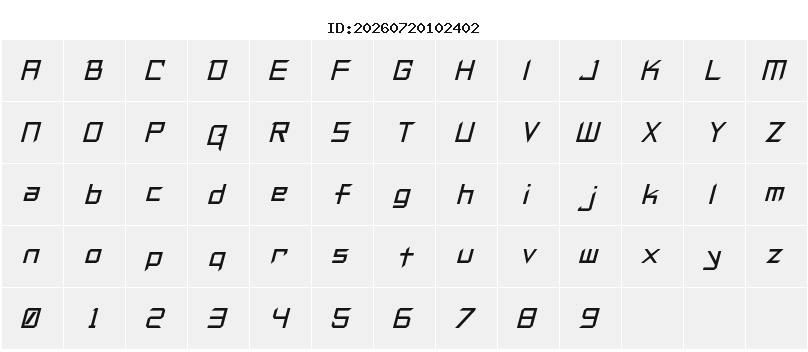
Furmanite Preview
• Font Name: Furmanite
• Font ID: Furmanite Bold Italic:Version 1.00
• Full Font Name: Furmanite Bold Italic
• Version: Version 1.00 April 19, 2013, initial release
• PostScript Name: Furmanite-BoldItalic
• Designer: Neale Davidson
About Furmanite.ttf
Furmanite.ttf is a modern, elegant sans-serif font designed for ultimate readability and visual harmony. Perfect for branding, headlines, web design, and print materials.